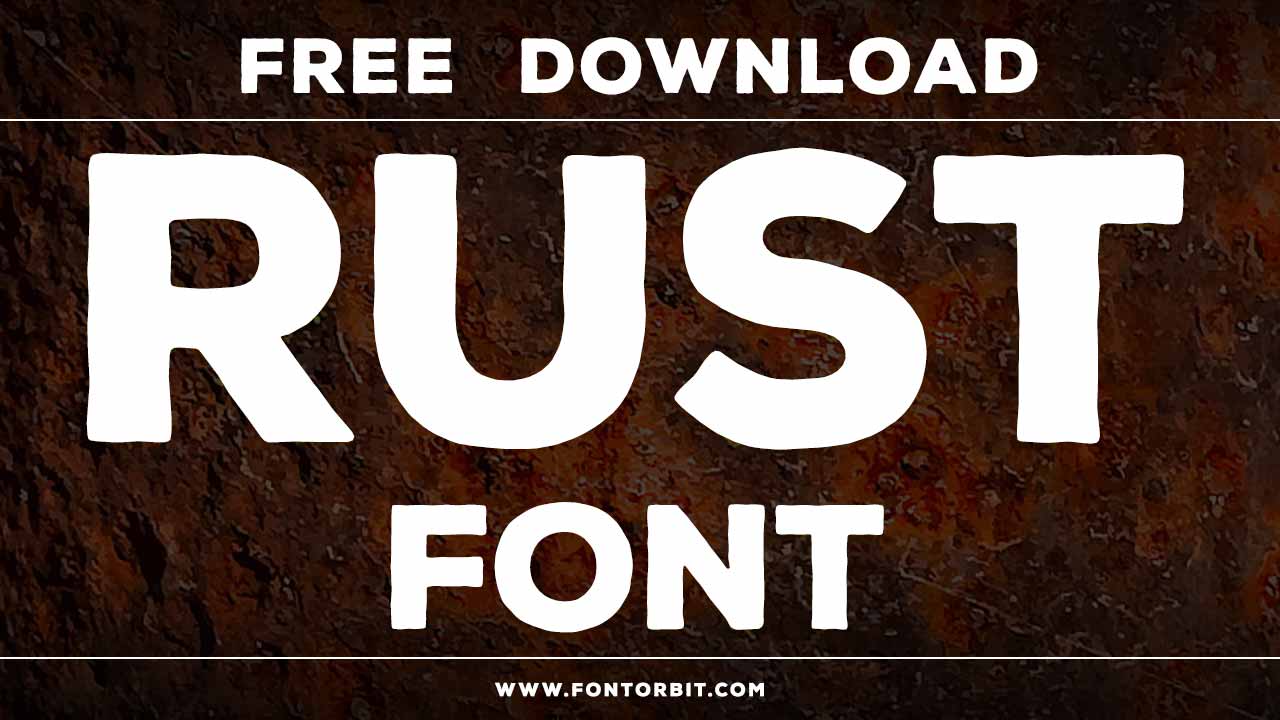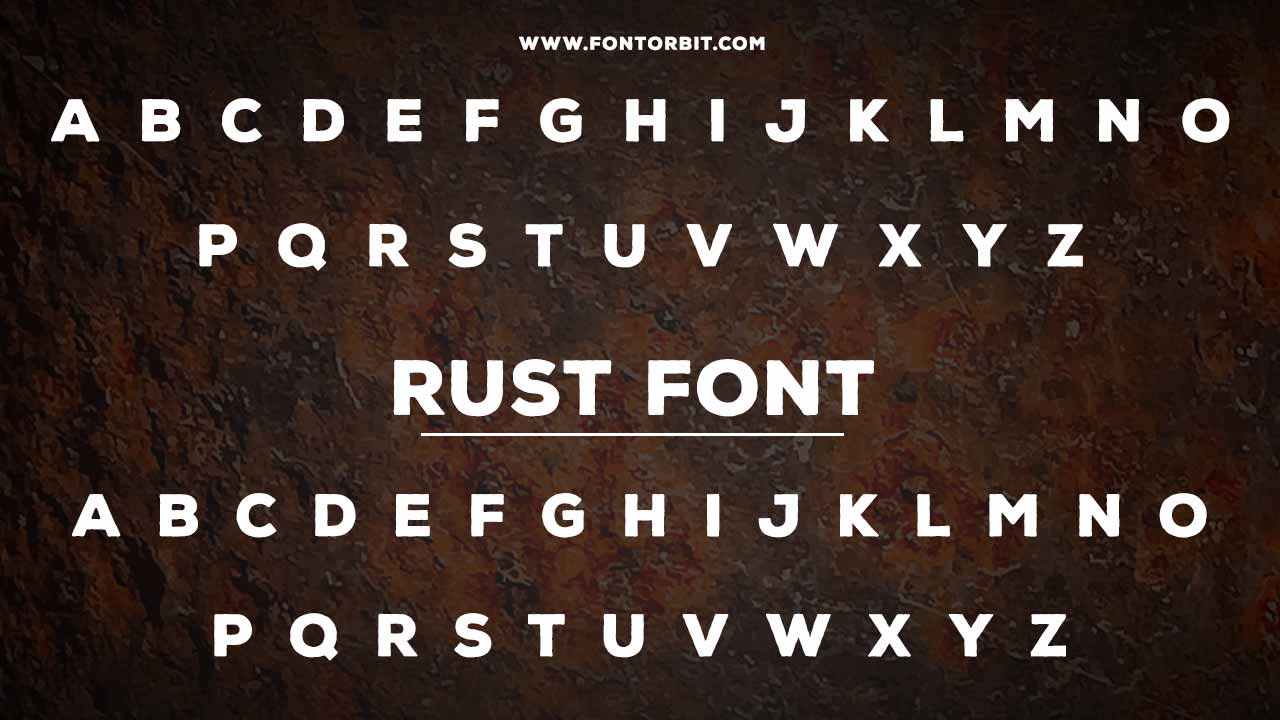
Rust Font is a modern, bold typeface designed by Ben Kohan. It offers a gritty, square, and techno-inspired aesthetic. Originally designed for the game Rust, this font provides an excellent choice for creating edgy designs with a rough, digital vibe. Whether you’re working on a logo, website, or print material, Rust is a versatile font perfect for any project demanding attention and impact.
Rust Font Family Overview
Although Rust is a single style, it captures a bold and structured look, perfect for designs that need a strong visual presence. Below are key details about the Rust Font Family:
Why Rust Stands Out
Rust Font is ideal for design projects that demand a rough and gritty touch. With its square, structured forms, this font is perfect for bold headlines, logos, and digital interfaces. It captures a raw, modern font aesthetic that can seamlessly blend into both digital and print materials.
The font’s texture creates a unique appeal, especially when paired with complementary colors and design elements. If you’re designing for web or print, Rust provides the visual impact necessary to grab attention, whether for an intro script, intro head, or main content.
Font Pairing & Usage
Though Rust is powerful, it works great with other fonts that balance its strength. Consider pairing it with fonts like Zing Rust or Nerd Font for a more customized feel. If you want to combine it with something more classic, pair it with handwritten or typewriter fonts for an interesting contrast.
Where To Use Rust
Rust works across various design projects, including a website header, product packaging, or logo. It’s adaptable to multiple media, allowing you to experiment with various shapes, textures, and design elements. Use Rust in:
- Headlines: Eye-catching and bold for maximum impact.
- Web Design: Great for intro rust font and textures.
- Print Materials: Use for posters, flyers, or promotional materials.
Rust’s OpenType features and typographic styles ensure that the font retains its integrity and clarity across different sizes, even when printed.
Rust And Breaking The Design Mold
While many fonts might lose their character when scaled or altered, Rust remains a reliable typeface with a unique look. It’s versatile and modern, able to handle the breaking changes in design trends while offering a strong character that keeps your projects grounded.
Font Flexibility: Easy To Adapt
Whether it’s the file you download or the background you choose for your design, Rust offers unparalleled flexibility. The font can be used for everything from bold intro rust fonts to detailed text or logos in various media formats.
It’s perfect for adding a scratch-like effect to your text, especially when creating designs with a rough or grunge style. This adaptability extends across different platforms, from web to print, making Rust the perfect choice for designers looking to make a statement.
The Rust font by Ben Kohan is a versatile, bold typeface perfect for creating impactful, gritty designs. Whether you’re working on logos, web design, or print materials, its rugged square and techno style ensures a striking presence. With its free commercial use license, ease of modification, and compatibility with other fonts, Rust offers endless creative possibilities for any design project. Its OpenType features and adaptable typographic styles make it a reliable choice for digital and print mediums. Download it today and bring a unique, bold edge to your designs.
Rust is a bold, techno font with a unique square and rugged design. It provides an edgy, modern aesthetic perfect for bold headlines, intro scripts, and decorative fonts. The font’s texture adds a rough version feel, making it ideal for projects that need a strong, distinctive style. With its typographic styles and ability to stand out, it’s widely used in projects that require a tech-forward look, like web design or graphic design.